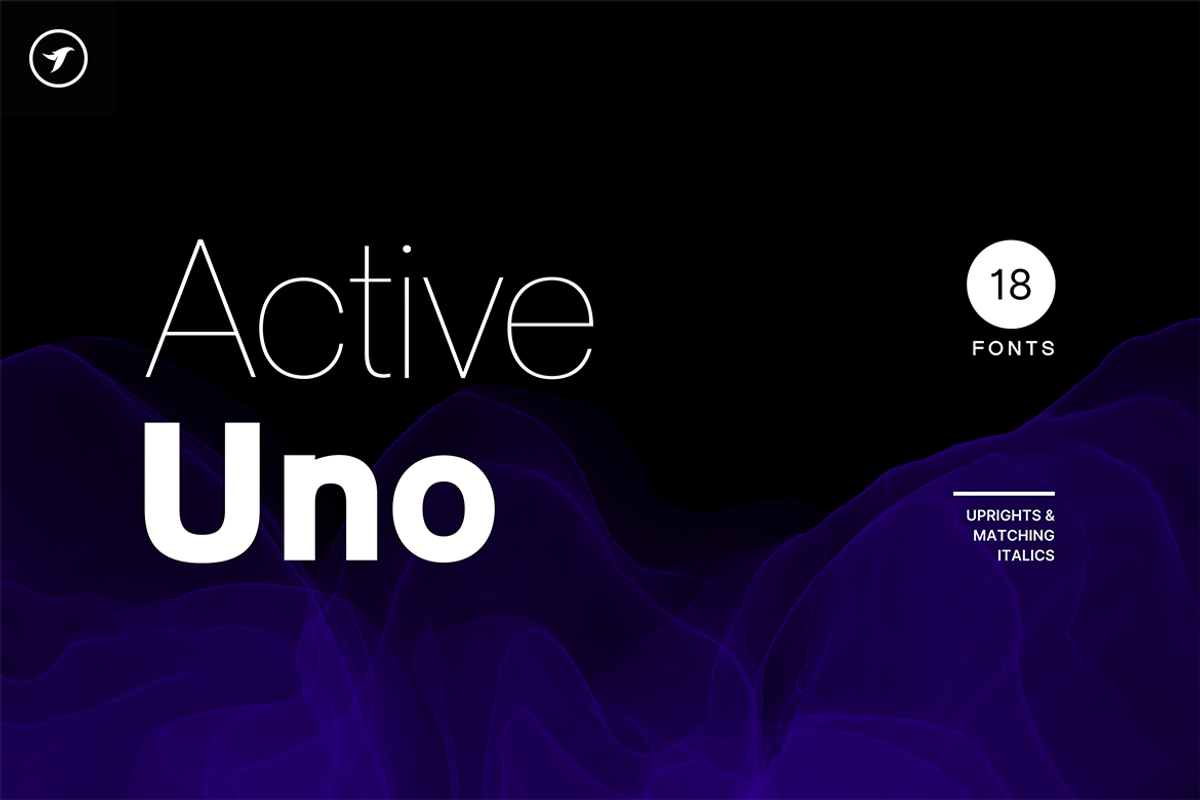
ACTIVE UNO - Modern Font Family Free Download
ACTIVE UNO Modern Font Family Free Download
ACTIVE UNO Modern Font Family Free Download is a sleek, bold, and versatile typeface collection designed for contemporary design needs. With its clean geometry, sharp edges, and strong presence, ACTIVE UNO is perfect for branding, tech-inspired layouts, posters, editorial design, user interfaces, and minimalist packaging.
The font family includes multiple weights and styles, allowing you to create stunning visual hierarchies and maintain consistency across all media. Whether you're aiming for a futuristic look or a professional, modern aesthetic, ACTIVE UNO delivers precision and style.